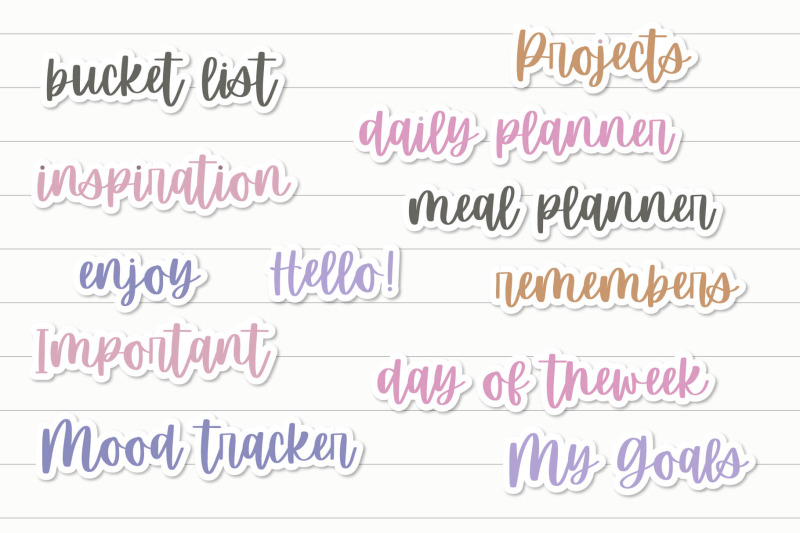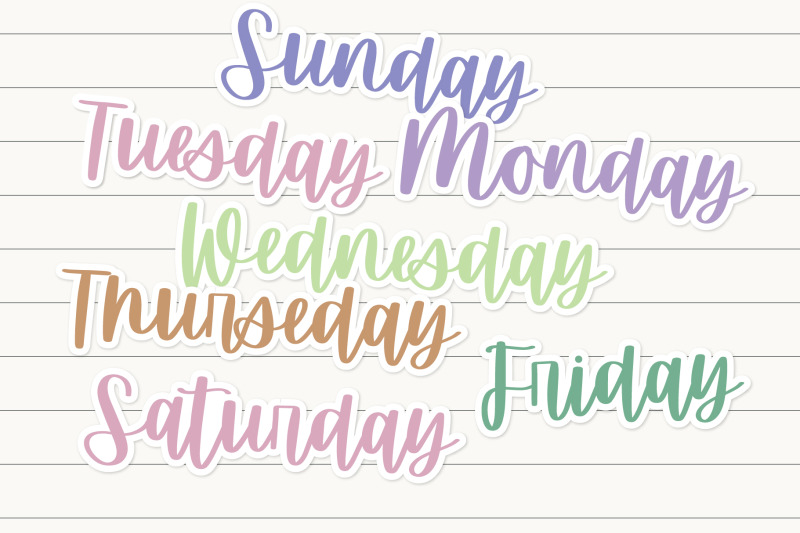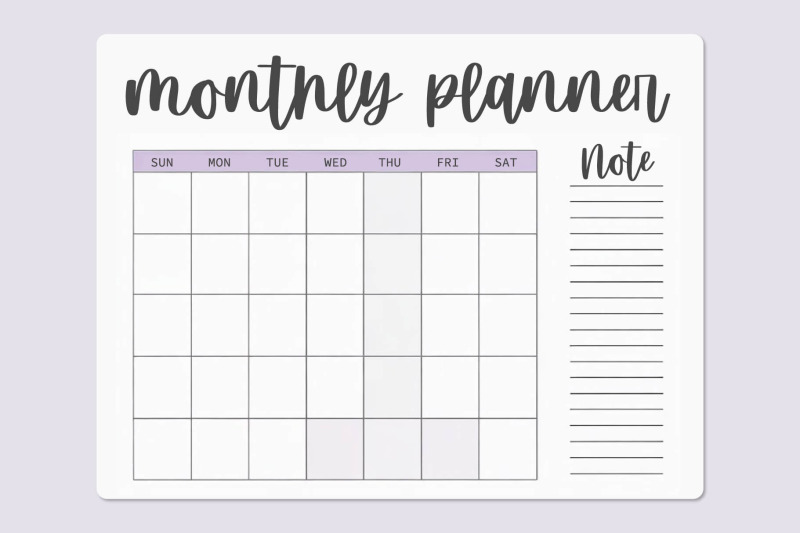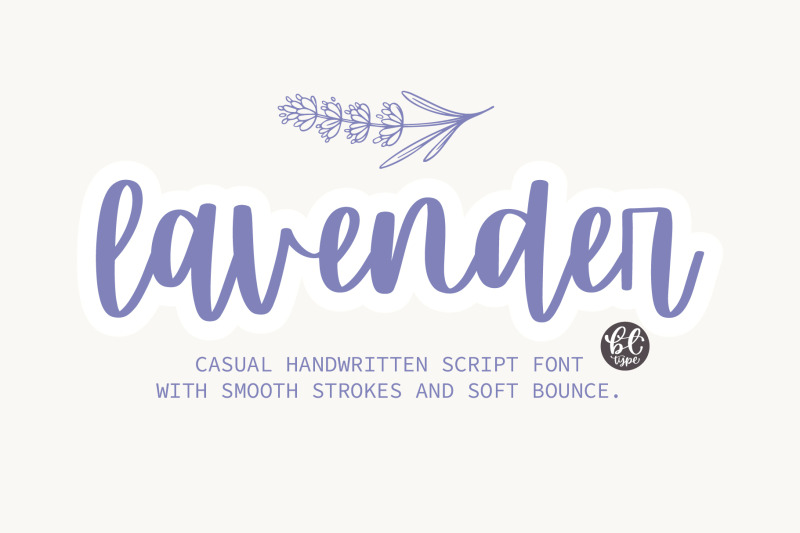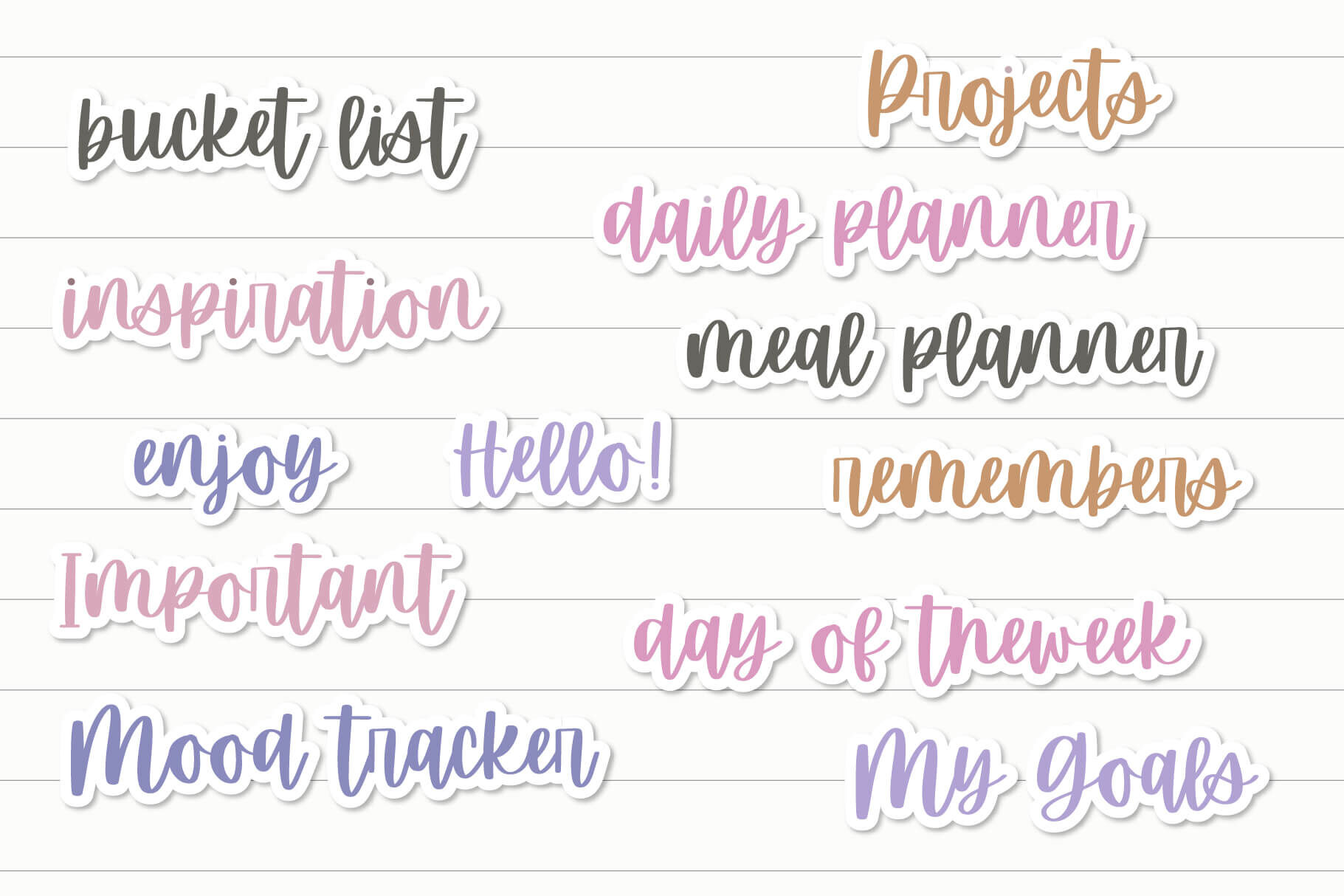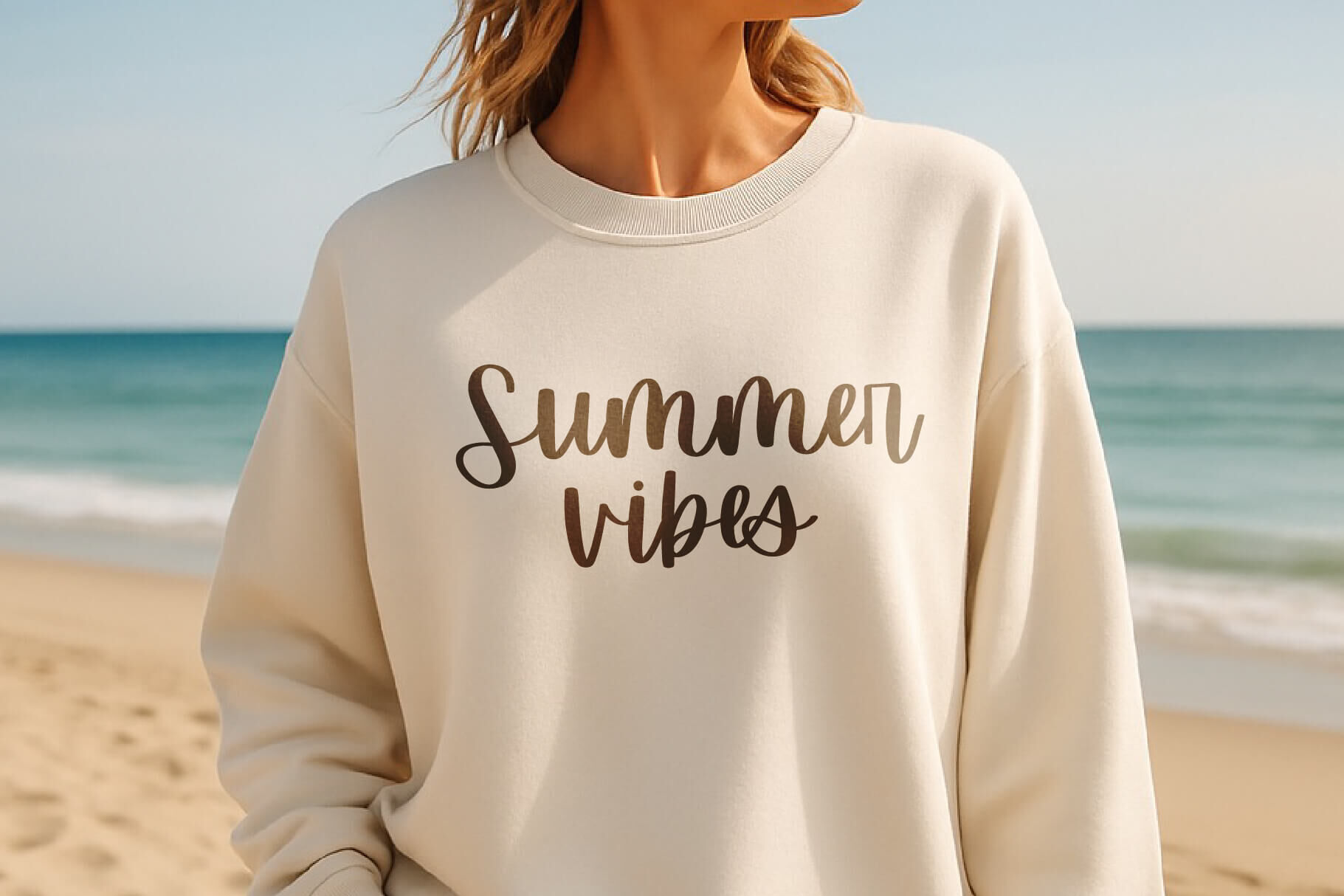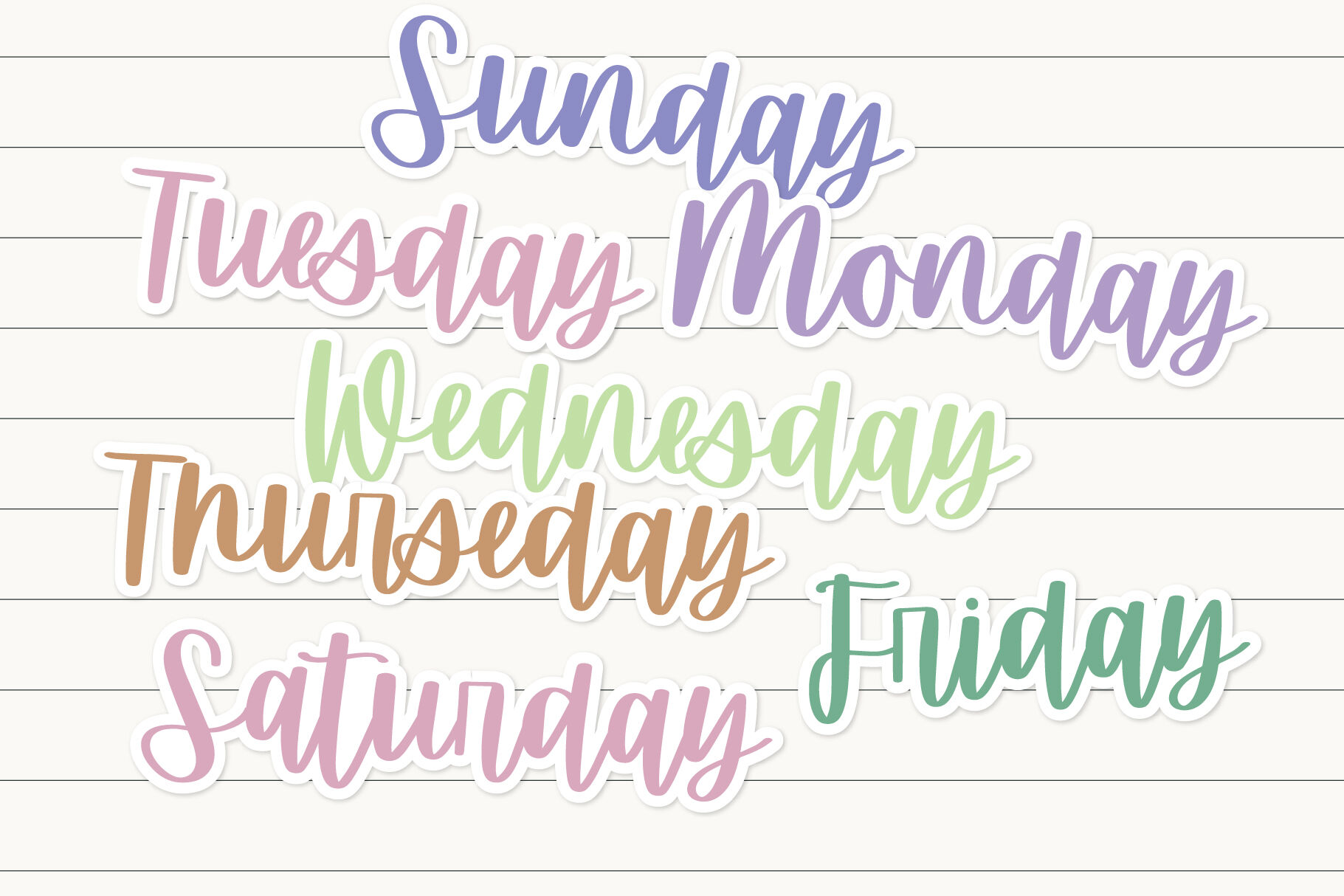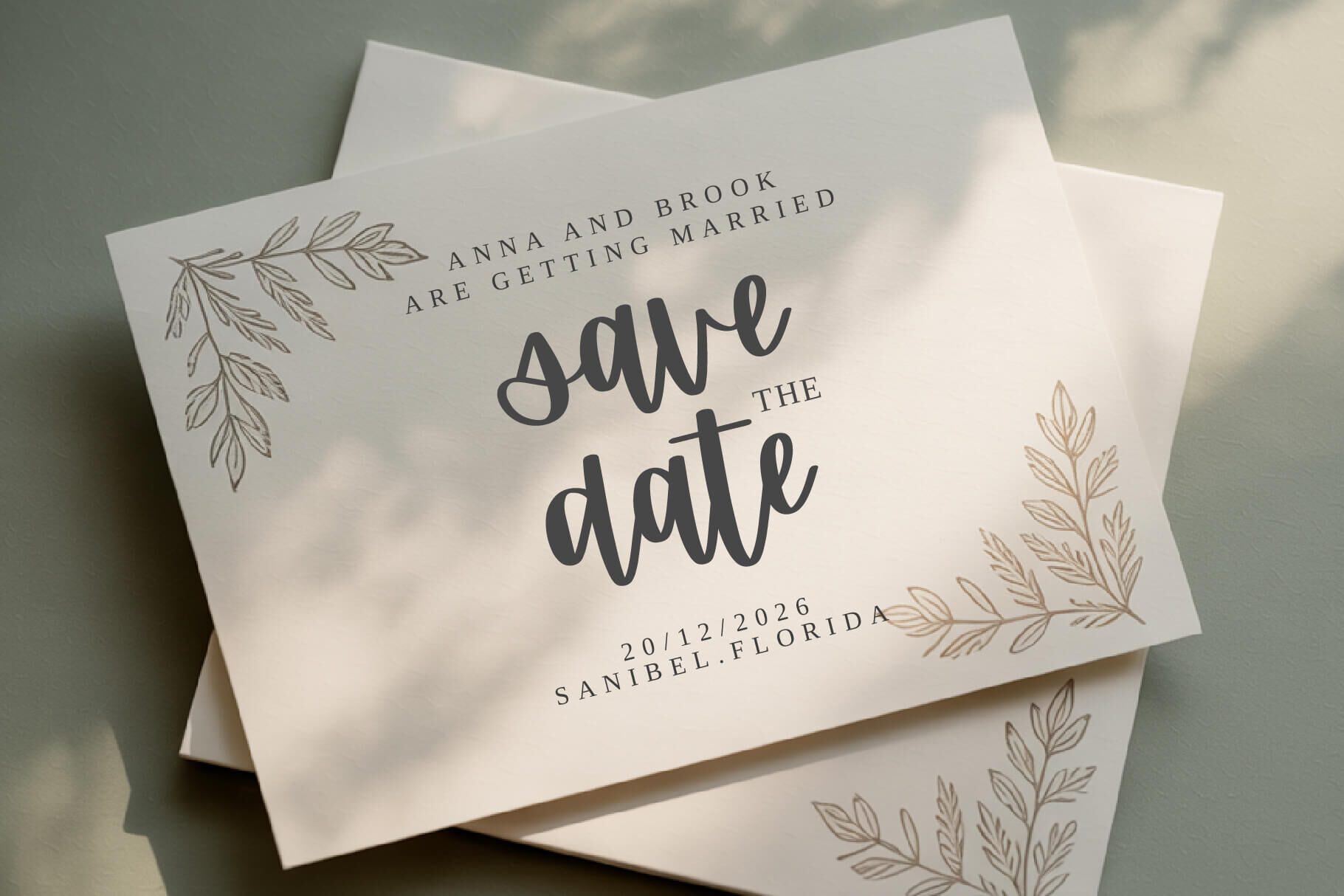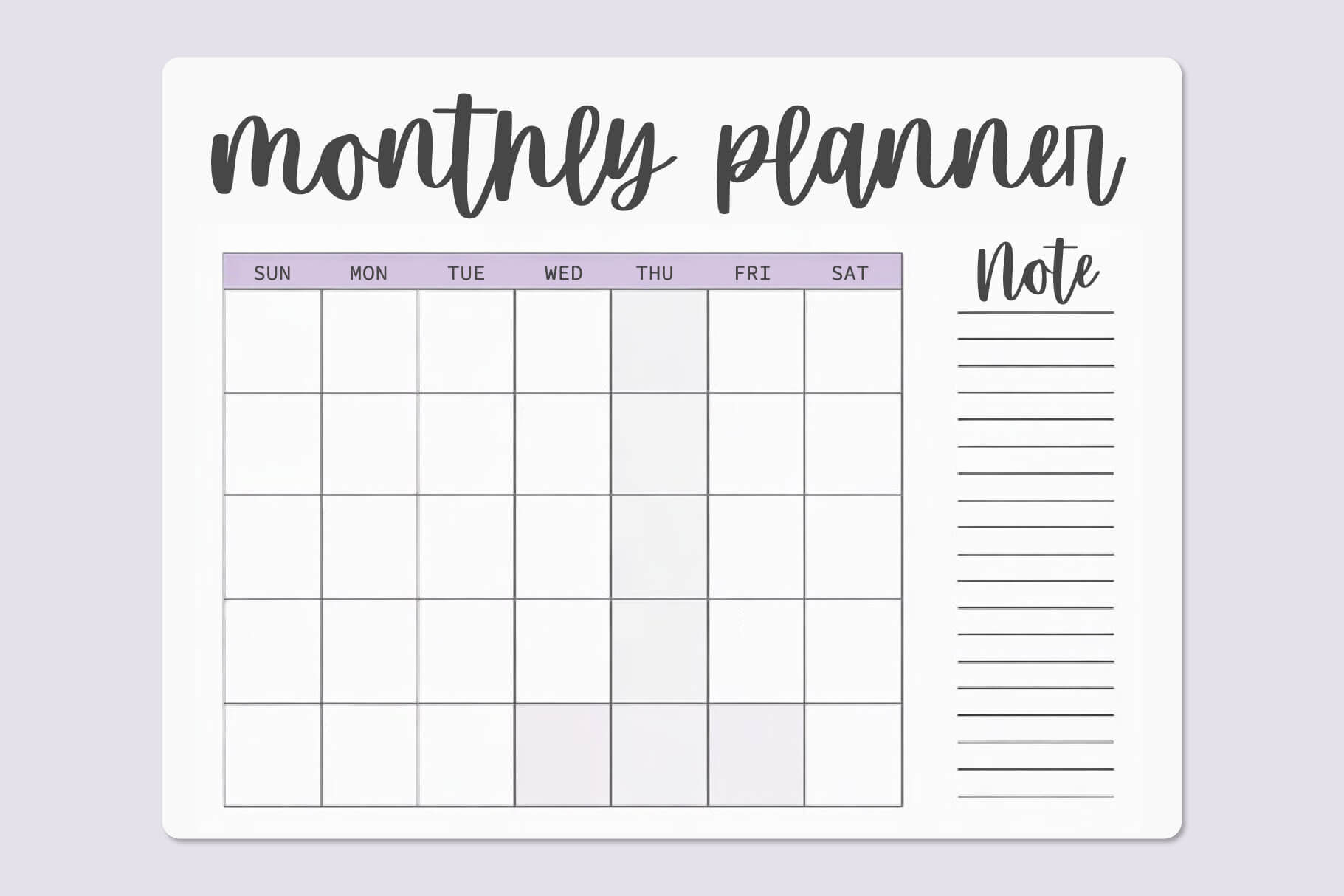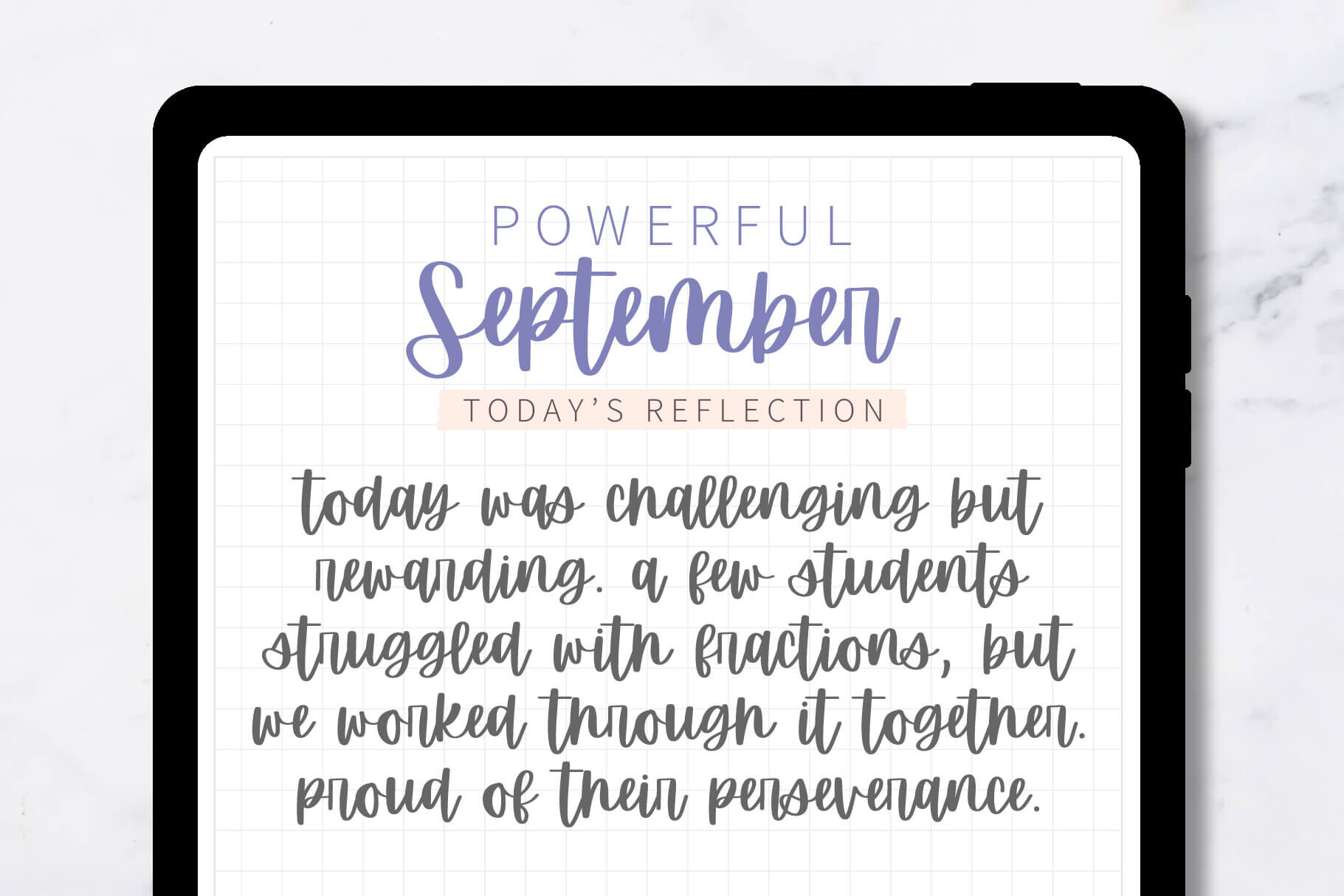
Lavender - A Cute handwritten font
Lavender is a casual handwritten script font designed for digital planners and craft projects. Inspired by brush pen strokes, it offers a natural, hand-written feel. Perfect for both journal body text and decorative planner headers, this font adds a soft, elegant touch to your creative work, casual yet refined. designs need! What You’ll Get: - Lavender - OTF/TTF - Standard glyphs, Basic Latin Unicode: standard English numbers and basic punctuation You will be able to use this font in ANY program!   Thank you for supporting RungNoiStudio